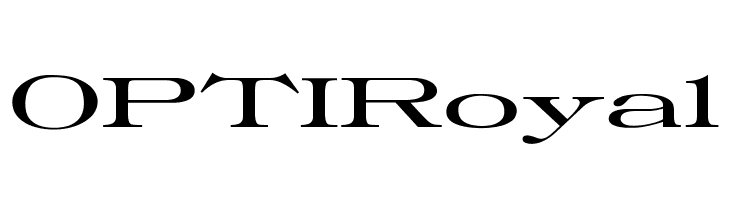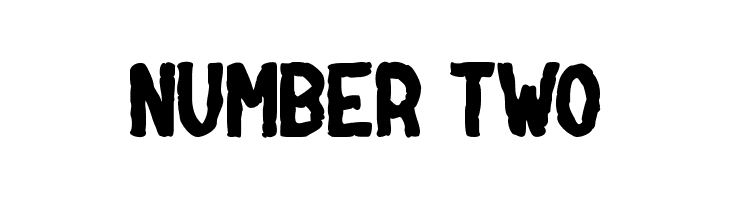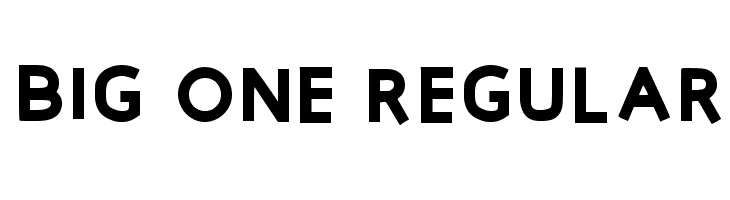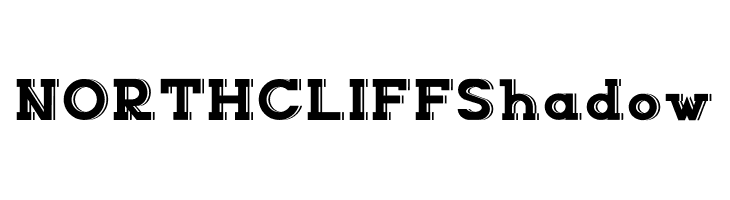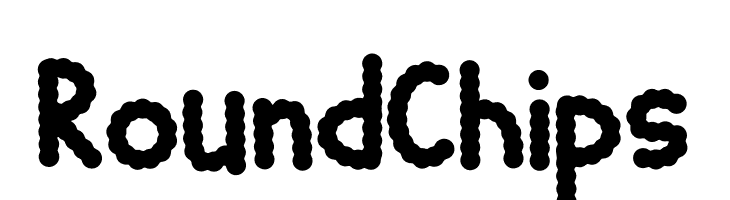
An elegant serif font with sharp angles and a classic style.
Bold, italic, and condensed with a modern, dynamic style.
A bold, oblique font with a dynamic and energetic style.
A bold, hand-drawn font with rugged, irregular strokes.
A modern, geometric font with clean lines and uniform proportions.
A bold, shadowed font with a strong, geometric design.
A playful, bubble-like font with rounded shapes and bold strokes.